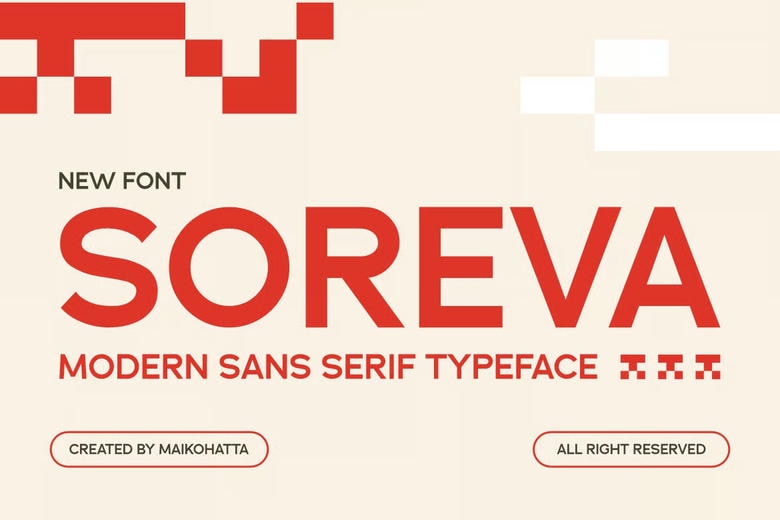
Soreva Font
Soreva is a new modern Sans Serif typeface that is clear, confident and versatile. This font has a powerful modern appearance with its clean geometrical design and bold typeface that can be used to create a bold and memorable visual impact on a brand name, headlines, posters or digital interfaces. The typeface: the composition of minimalistic forms and the impact of the visual perception is balanced, which is the merger of the precise functionality and the active design.
The rounded curves and the sharp ends of its design bring a smooth professional appearance to Soreva, yet it is easy to use and warm. Soreva is legible across all media, be it heavy or light, when needed, whether in an uppercase font to impact titles or in a body text.
Soreva Sans Serif Font